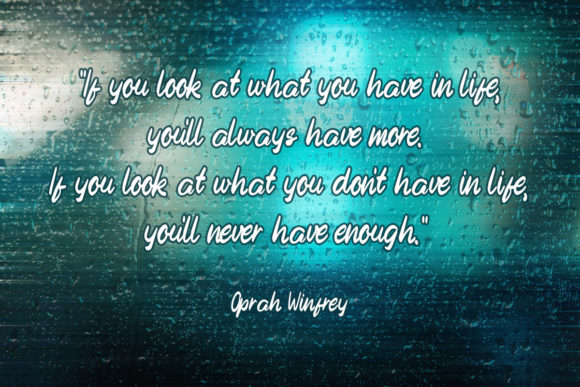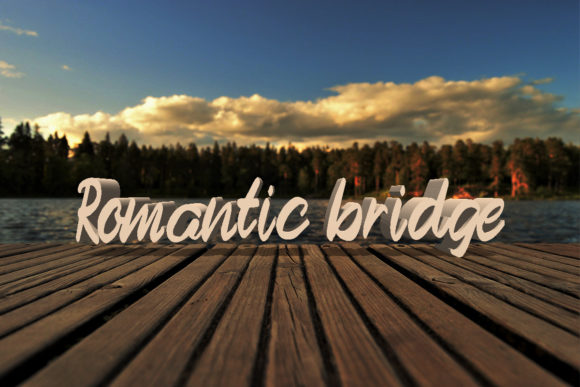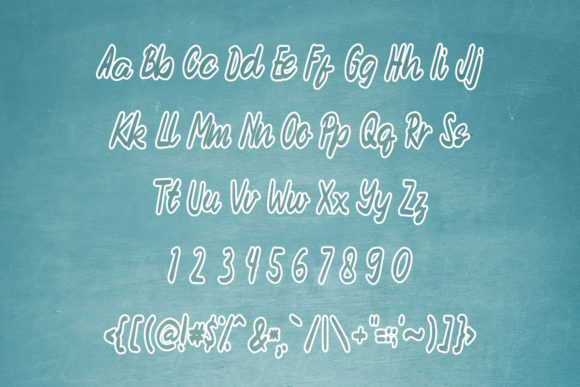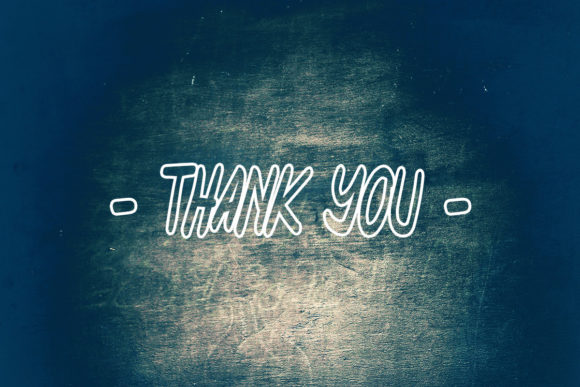
Go Summer Font
About Go Summer Font
Go Summer is a chic, flowing script font that emanates joy and versatility. Its stylish alternates and ligatures make this font the perfect match for any project.